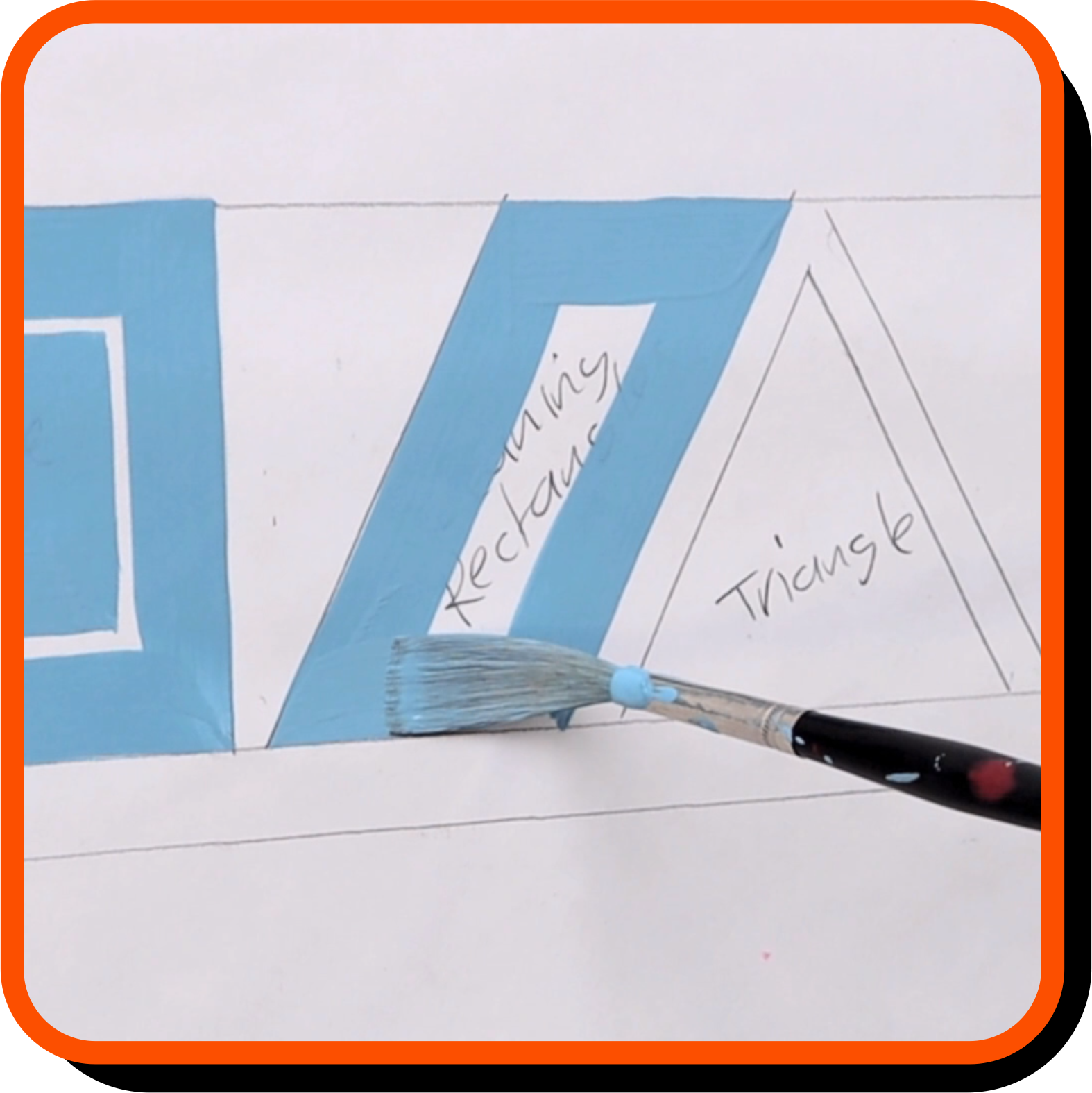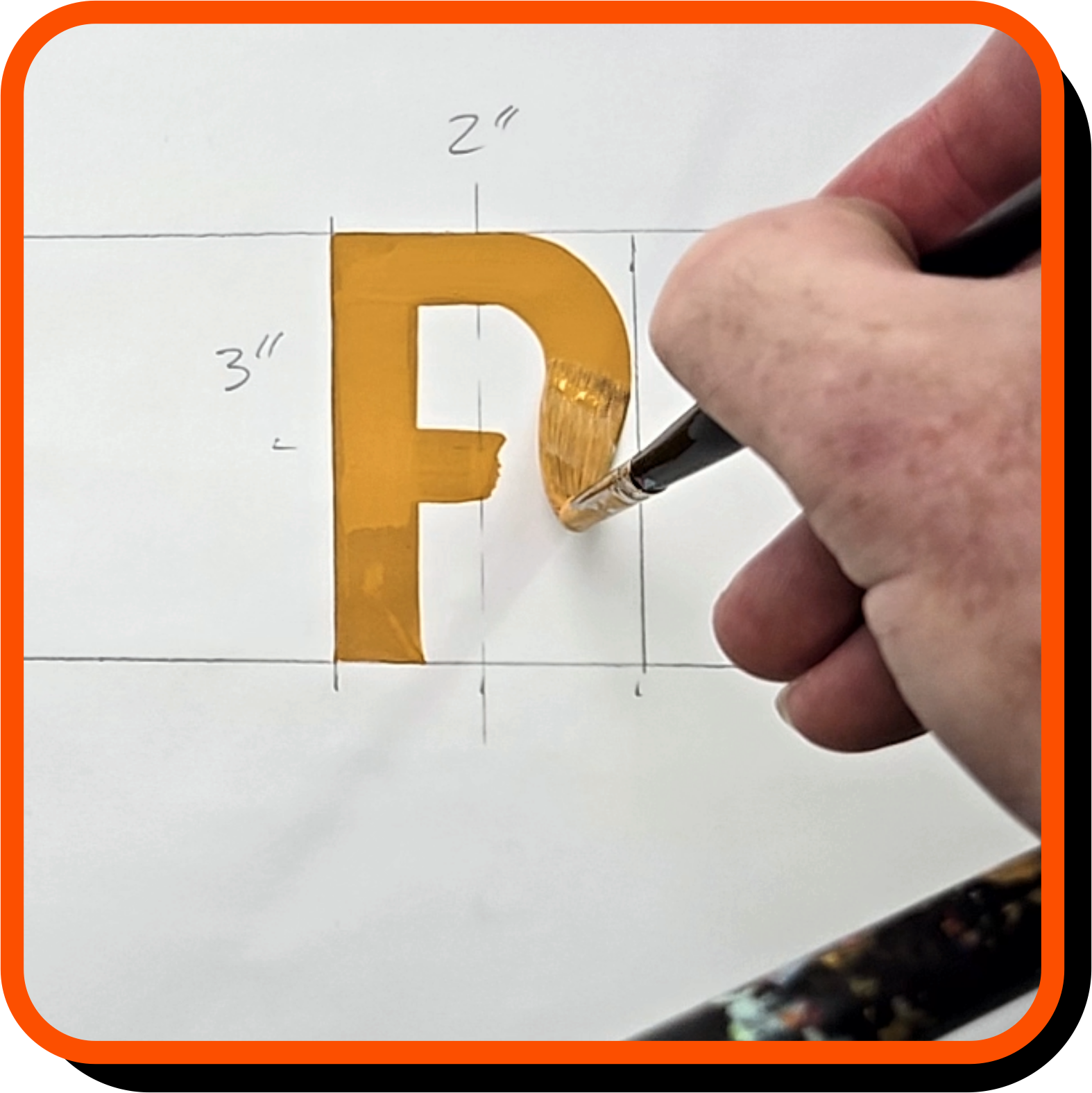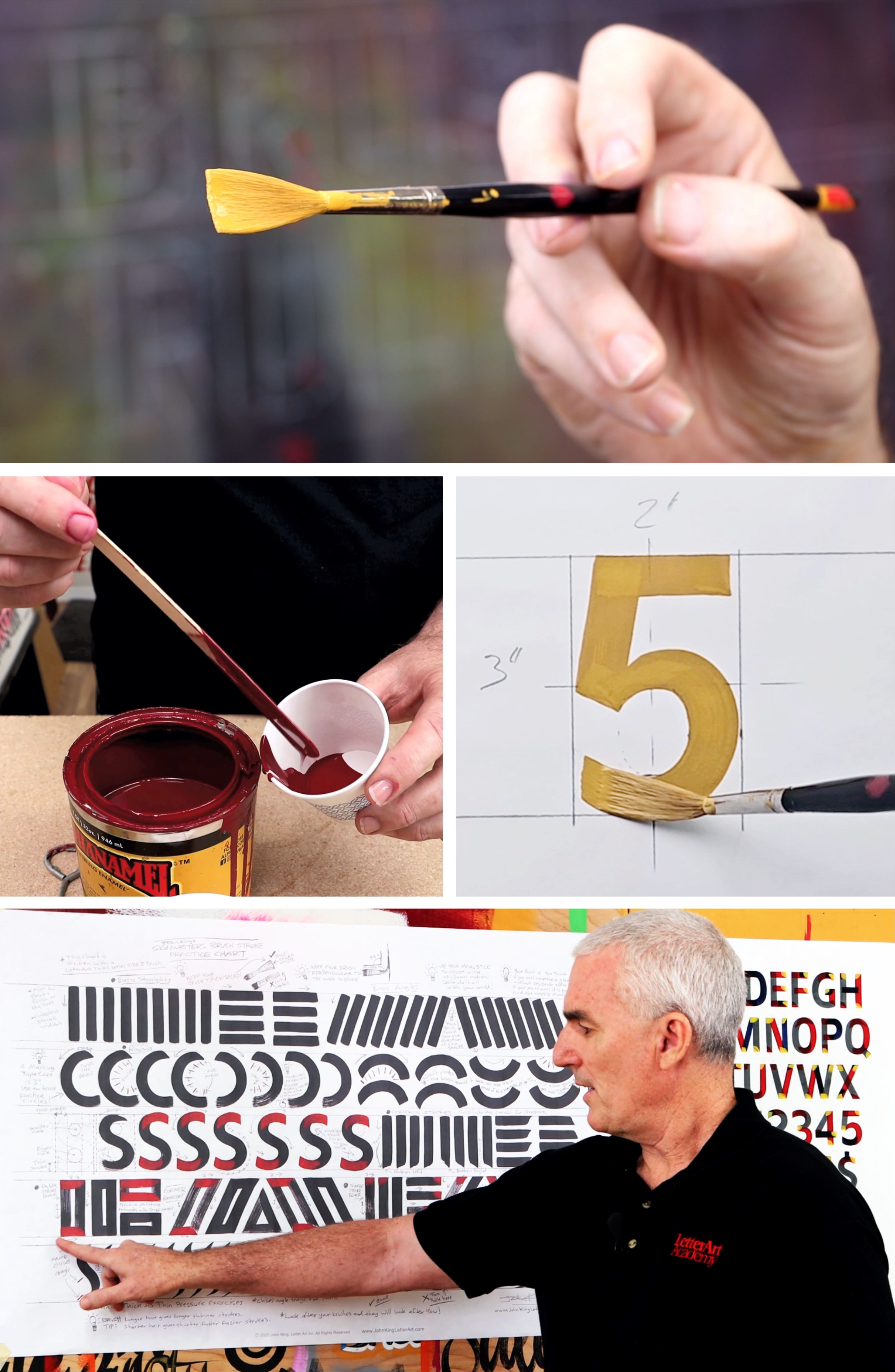
COURSE OVERVIEW
Learn the Foundations of Traditional Signwriting and Hand Lettering.
One of the first things a Signwriter must learn is how to properly use a Signwriter's Lettering Brush.
It's a skill that takes practice to master however learning the correct techniques from the beginning is imperative to your development as incorrect brush technique can and usually will cause bad habits that will inhibit your progress which is why I'm providing this course to set you on the right path to mastering this great skill and becoming the best signwriter you can be.
You will learn about Brush and Mahl Stick Grips, Mixing Paint to the right constistency, Brush Techniques and Fundamental Stroke Training along with how to apply those skills to writing a Single Stroke Block Alphabet.
You'll begin with the Brush Basics where we go over the common lettering brush types, their anatomy and dynamics, brush grips, how to use a Mahl Stick along with how to mix your lettering enamel to the right consistency and load the brush.
Then we begin the practical exercises which include executing the Foundational Brush Strokes, how to get sharp corners and smooth curves along with identifying and trouble-shooting the common stumbling blocks you may encounter as a beginner.
In the final section of the course you'll learn how to write a Single Stroke Block Alphabet with detailed stroke by stroke tutorials for each letter and numeral ensuring you leave the course armed with all the knowledge you need to carve your path to Lettering Brush Mastery!
In the course John will be using Alkyd Lettering Enamel on Bond Paper with a LetterArt SWKM Series (Medium length) Size 8 Brush and Mahl Stick.
No. This course is designed for Complete Beginners taking their first steps with a brush to those with experience looking to improve, so no prior experience or training is necessary however you will need basic knowledge about the tools and materials we'll be using.
BASICS
There is more to a Lettering Brush than meets the eye. Learn what makes a Sign Lettering Brush unique, how it behaves and what it's capable of before putting it into action. Also learn how to get the most out of your brush by providing it with the correct paint consistency and care.
FUNDAMENTALS
Master the Foundational Brush Strokes that make up the alphabet. Overcome Common Hurdles and learn the Correct Brush Techniques that will have you painting satisfying Straight Lines, Smooth Curves and Sharp Corners which when combined create Beautiful Letters.
THE ALPHABET
Put your Lettering Brush Skills to use as you learn to hand paint a Freehand Traditional Signpainter's Block Alphabet, the cornerstone of a signpainter's skillset. Detailed stroke by stroke tutorials will guide you through the entire process to equip you with the techniques of a pro.
*4 Course Modules. 1: Lettering Brush Basics 2: Brush Dynamics 3: Brush Stroke & Technique Training. 4: Writing a Single Stroke Block Alphabet.
*51 Tutorial Videos. 9.5 Hours of detailed video lessons and instruction.
*Downloadable Resources. Brush Stroke Training Chart, Block Alphabet Tutorial Chart, Single Stroke Block Tracer Sheets and Letter Width Charts.
*Access to LetterArt Academy Private Facebook Group. Interact with John and other students. Ask course related questions. Share your work for feedback and critique.
After completing this course you will have learned about the common Sign Lettering Brush Types, Brush Grips, Brush Care, How to use a Mahl Stick, Paint Consistency, Brush Dynamics and Manipulation Techniques, the Foundational Brush Strokes and How to Write a refined Freehand Single Stroke Block Alphabet. All the Brush Techniques and Excerises that with practice will take your skills from Beginner to Professional level.